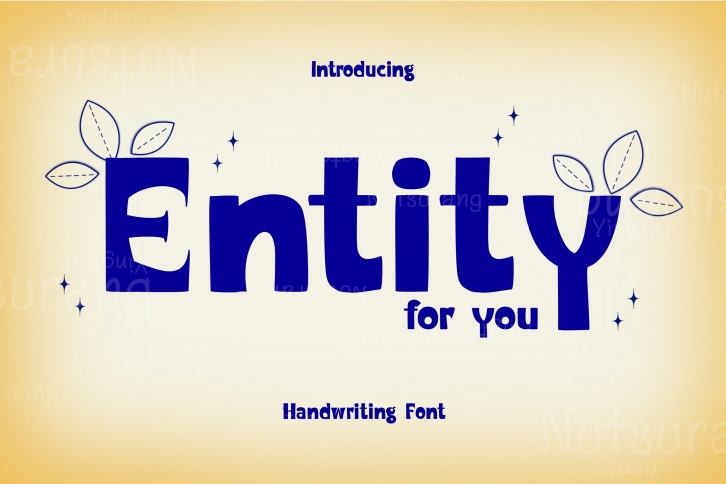
Entity for You is a bold and modern display font, perfect for your most creative design projects! Add it to book covers, product packaging, banners, posters, or anything bid and bold.